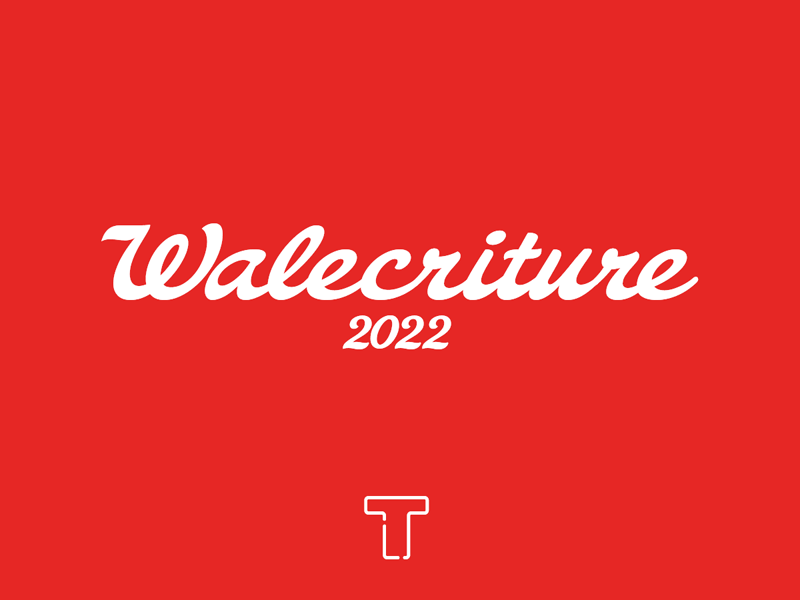
Preview and download Walecriture Font. Created by LyonsType in Script Various styles with 100% Free license.
Font name: | Walecriture |
Author: | LyonsType |
A typeface based on the Walgreens wordmark. All LyonsType fonts are freely available to download at: https://lyonstype.wixsite.com/home/typefaces For any inquiries, please contact me at lyonstype@gmail.com |